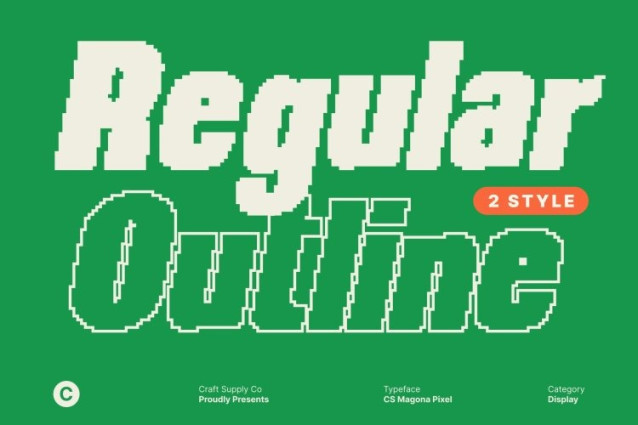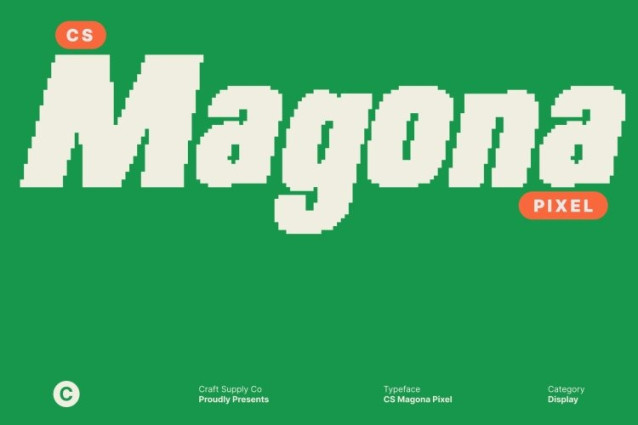
CS Magona Pixel Font
CS Magona Pixel Font This is a bold sans serif display font designed to command attention, enhanced with subtle pixel detailing for a modern digital flair. Its geometric precision and strong letterforms radiate confidence and energy, making every composition feel impactful and visually dynamic.
Modern Shapes with Expressive Pixel Character
Each letter combines clean lines, structured geometry, and pixel-inspired edges, creating a font that balances clarity with expressive personality. The result is a typeface that feels contemporary, approachable, and full of character, ideal for designers who want bold readability with a digital twist.
Perfect for Headlines, Posters, and Branding
This font shines in high-impact display settings, from headlines and posters to branding, packaging, and social media graphics. Its bold form ensures maximum visibility while the pixel accents add a subtle, modern edge that keeps designs fresh and engaging.
Contemporary Style with Lasting Digital Appeal
Beyond strength, this font delivers versatile style suitable for both print and digital projects. Sleek, structured, and energetic, it communicates confidence, vibrancy, and sophistication, making it a go-to choice for designers seeking bold, modern, and memorable typography.